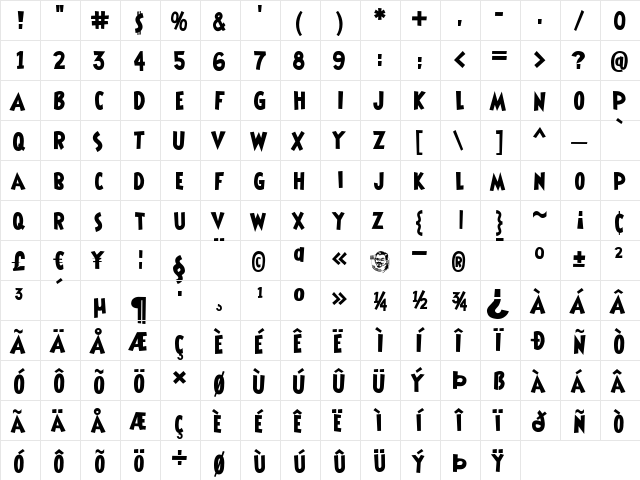
Shermlock Regular
Design Context for Shermlock Typeface
Shermlock is a composed and adaptable typeface that performs quietly and consistently across a wide range of design contexts.